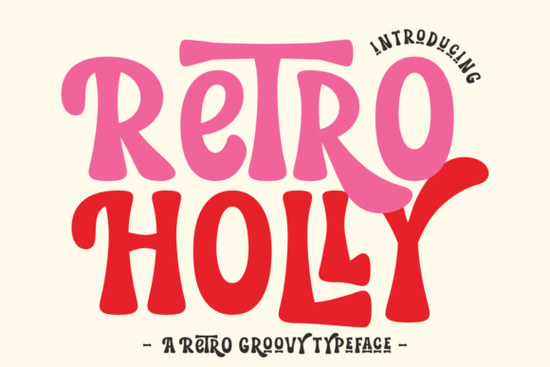
When you're looking for a font that combines the charm of vintage aesthetics with a modern twist, Retro Holly Font is a fantastic choice. This Boho font brings a playful and groovy vibe to your projects, making it perfect for Cricut designs, decorative scripting, and summer-themed typography.
Why Choose Retro Holly Font?
Retro Holly Font is more than just a typeface; it's a design statement. Its bold, handwritten style is reminiscent of the 1970s, with a psychedelic artistry that adds a unique touch to any project. Whether you're working on a logo, stickers, or t-shirt designs, this font stands out with its chunky, wavy, and swash styles. The versatility of Retro Holly Font makes it a favorite among Procreate users and Creative Fabrica fans alike.
Perfect for Various Projects
One of the standout features of Retro Holly Font is its adaptability. Here are some ways you can use it:
- Cricut Projects: Add a personal touch to your Cricut crafts with this funky and stylish font. It's perfect for creating custom decorations and gifts.
- Logo Design: Make your brand stand out with a retro-inspired logo. The bold and playful nature of this font will give your business a unique and memorable look.
- T-Shirts and Apparel: Print Retro Holly Font on t-shirts, hoodies, and other apparel for a fun and trendy appearance. It's ideal for both personal and commercial use.
- Decorative Scripting: Use this font for invitations, greeting cards, and other printed materials. Its handwritten allure adds a personal and artistic touch.
How Does Retro Holly Font Compare to Other Vintage Fonts?
While there are many vintage fonts available, Retro Holly Font offers a distinctive blend of old-school charm and contemporary flair. Here’s how it compares to some other popular options:
- Varsity Signature Font has a more classic, collegiate feel, making it great for sports-themed designs. In contrast, Retro Holly Font is more playful and bohemian.
- Thick Honey Duo Font is known for its smooth, flowing lines, which give it a more elegant and sophisticated look. Retro Holly Font, with its chunky and wavy styles, is more casual and fun.
- Back to Vintage Font captures the essence of classic vintage design, with a more traditional and formal appearance. Retro Holly Font, on the other hand, is more modern and vibrant, with a hint of the '70s funk.
- Beautiful Caroline Font is a delicate and feminine script font, perfect for wedding invitations and elegant designs. Retro Holly Font, with its bold and playful style, is more suited for casual and creative projects.
- Vintage Western Font has a rustic, cowboy feel, making it ideal for western-themed designs. Retro Holly Font, with its groovy and psychedelic elements, is more versatile and can be used in a wider range of projects.
Getting the Most Out of Retro Holly Font
To make the most of Retro Holly Font, consider these tips:
- Experiment with Colors: Try different color combinations to bring out the retro and playful aspects of the font. Bright, bold colors work well with its groovy style.
- Combine with Other Fonts: Pair Retro Holly Font with simpler, more neutral fonts to create a balanced and visually appealing design. This can help highlight the unique qualities of the font.
- Use in Different Contexts: Don't limit yourself to one type of project. Test the font in various applications, from digital designs to physical products, to see where it shines the most.
- Play with Styles: Utilize the different styles (wavy, chunky, and swash) to add variety and depth to your designs. Each style can bring a different feel to your project.
Where to Find Retro Holly Font
You can find Retro Holly Font on Creative Fabrica, along with a wide selection of other high-quality fonts. Adding this font to your digital toolbox will enhance your design capabilities and bring a fresh, retro-inspired touch to your projects.
Final Thoughts
Retro Holly Font is a must-have for designers, crafters, and anyone looking to add a touch of vintage charm to their projects. Its bold, playful, and versatile nature makes it a valuable addition to your font collection. Whether you're working on a Cricut project, designing a logo, or creating custom t-shirts, Retro Holly Font is sure to make your designs stand out.